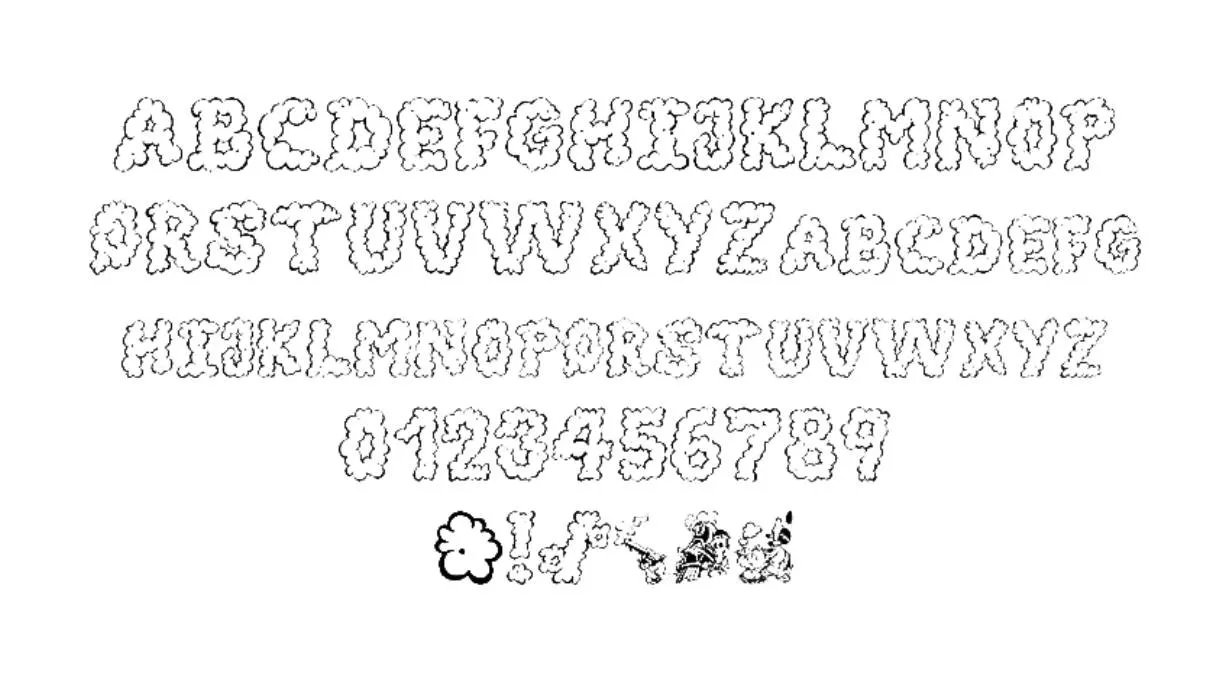
Alpha Smoke Font is fancy font that was designed by a French female font designer Chloe5972. This typeface comes with a unique and smoky texture that can add a creative and stylish touch to your designs.
It also arises with decorative and stylish characters in uppercase, lowercase, numbers, and punctuations which can add a smoky and cool touch to anything. You can combine this typeface with high rise font for outstanding and innovative results.
Alpha Smoke Font Family